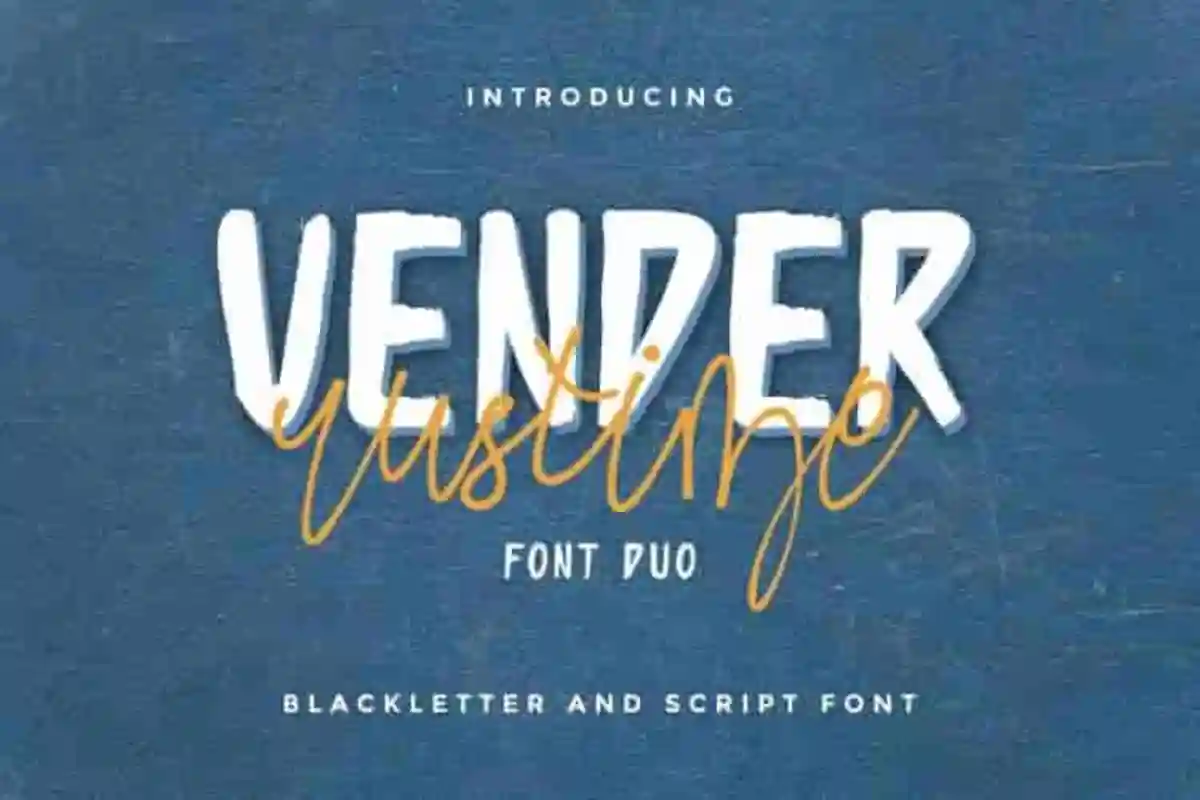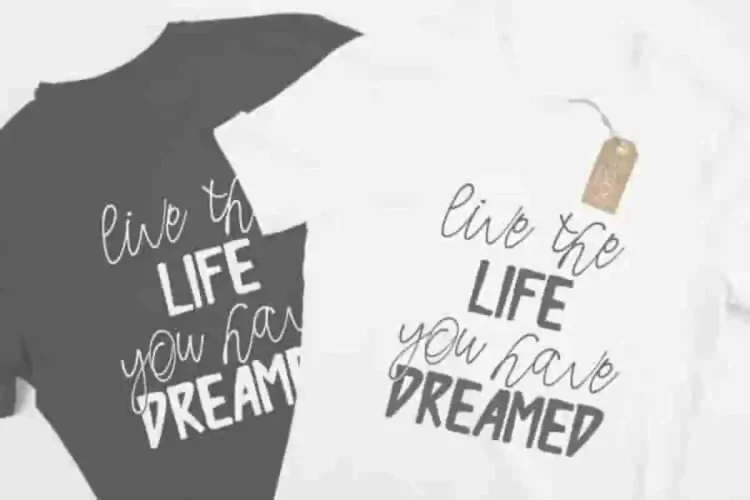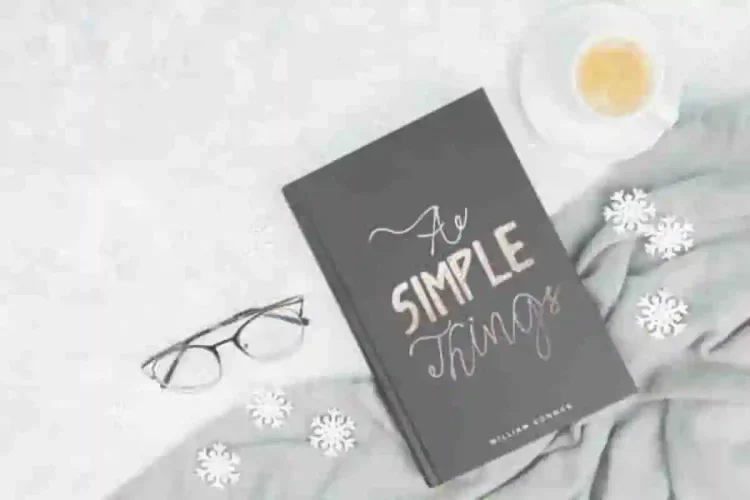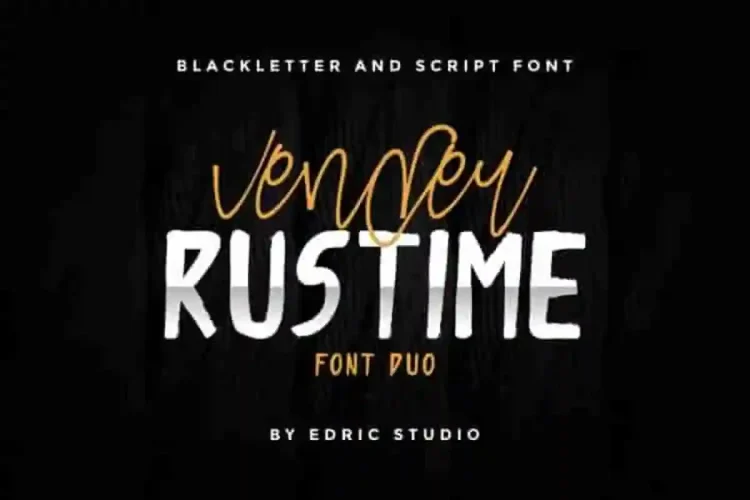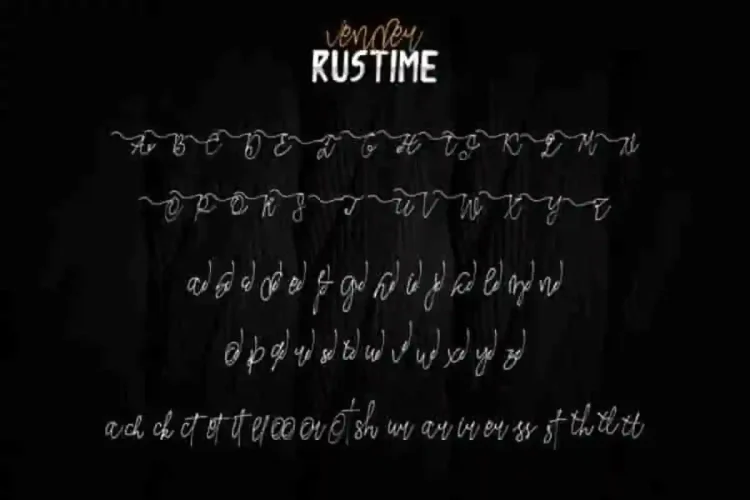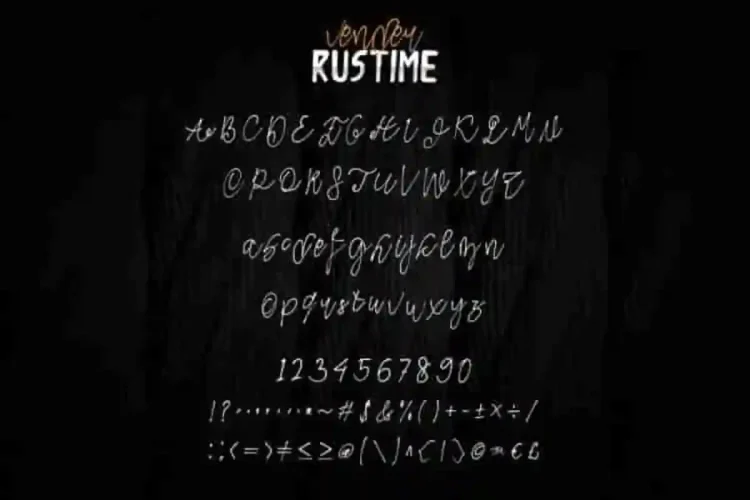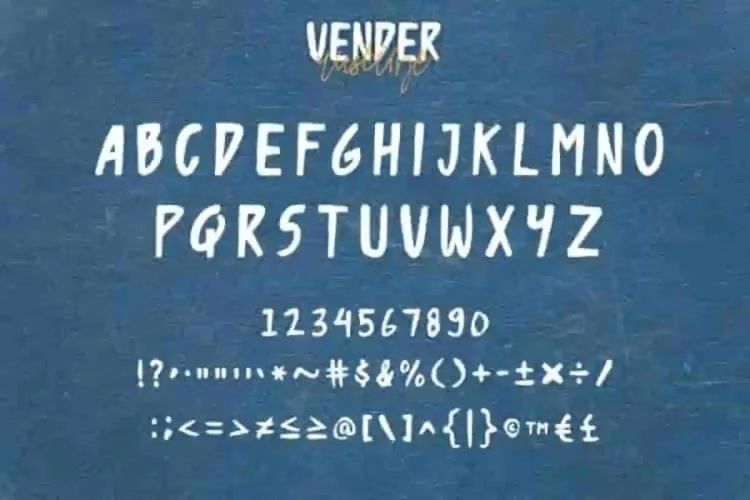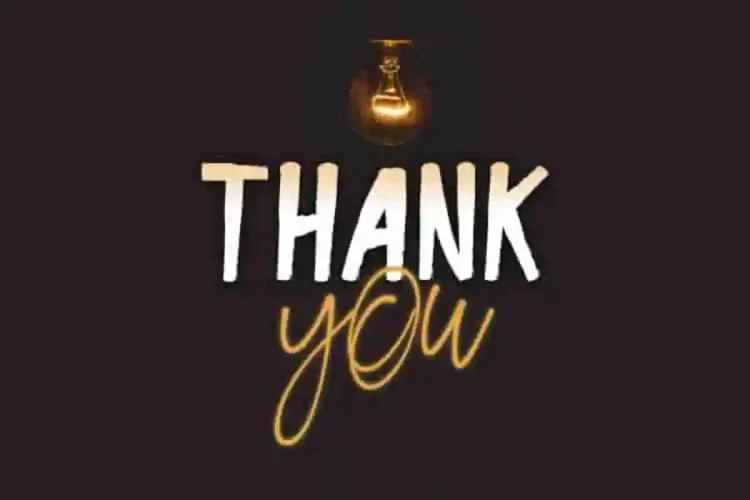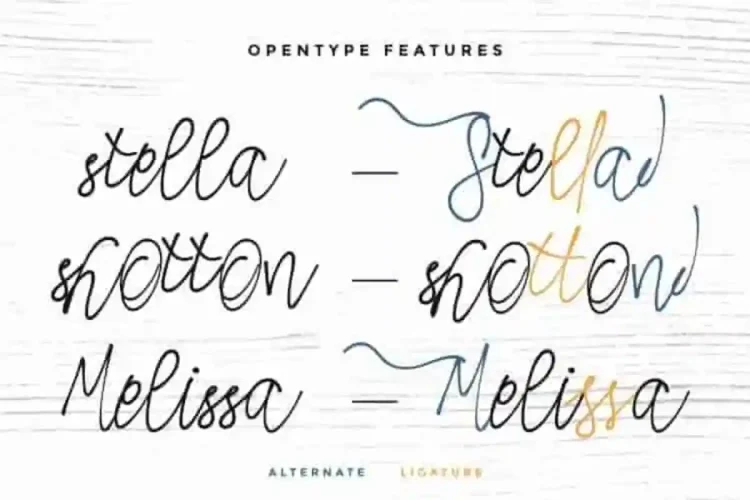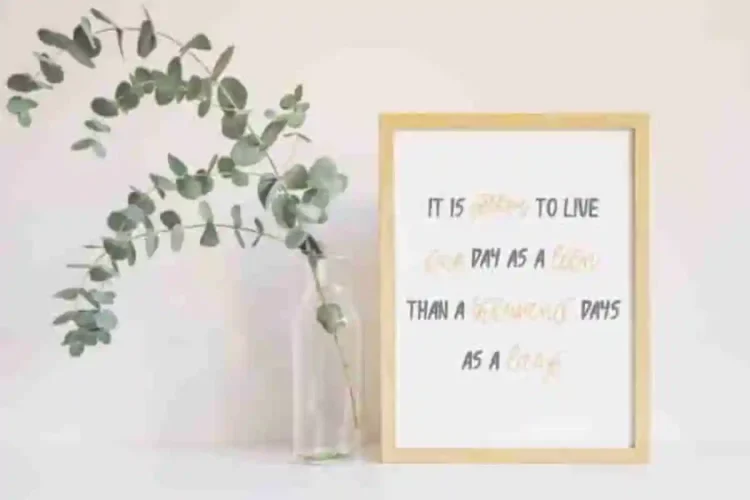
Vender Rustime Handwritting Font Duo
Introducing our new font : Vender Rustime Font Duo
This font was handcrafted with love in Bandung and Garut – Indonesia. The artists of this font are : Yasri and Suci. This is a script font duo with two styles : Grunge and Handwriting. Both of the styles are in awesome mood.
Vender Rustime Font Duo comes with many international languages characters glyphs.  This font will suits many projects categories : (with extended license) Logo type, flyer, stationery, business card, signage, flyer, brochure etc.  With your creativity, there’s no limit using with this font.